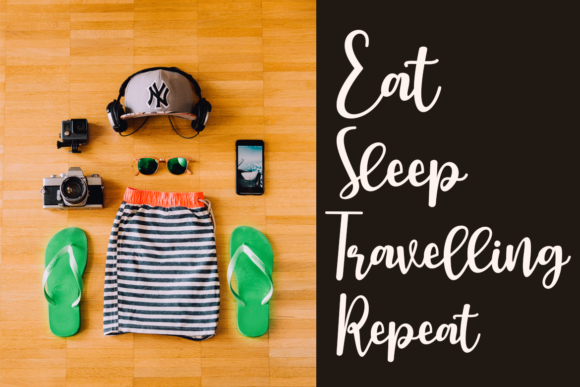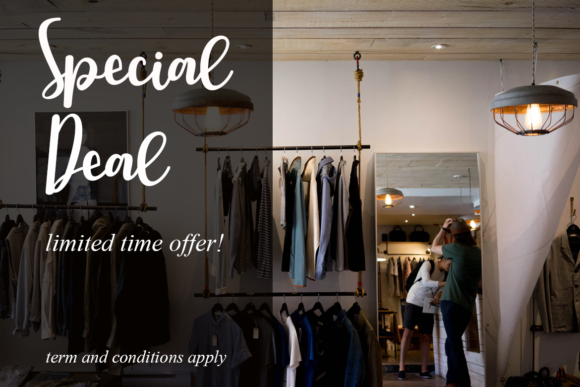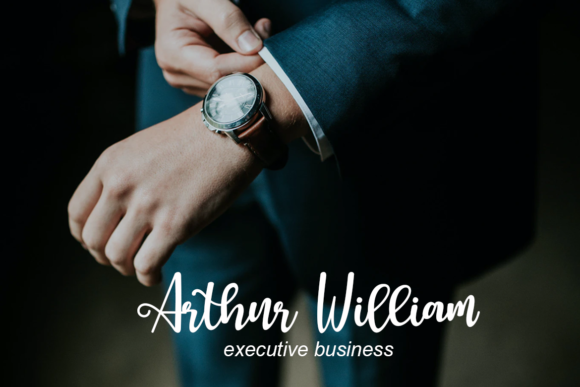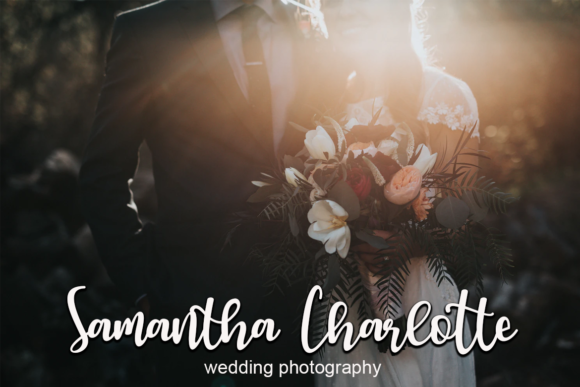
About Assasins Font
Assasins is a beautiful handwritten font, created with the help of a joyful brush pen. It looks lovely on invitations, thank you cards, quotes, greeting cards, logos and every other design which needs a romantic, trendy touch.